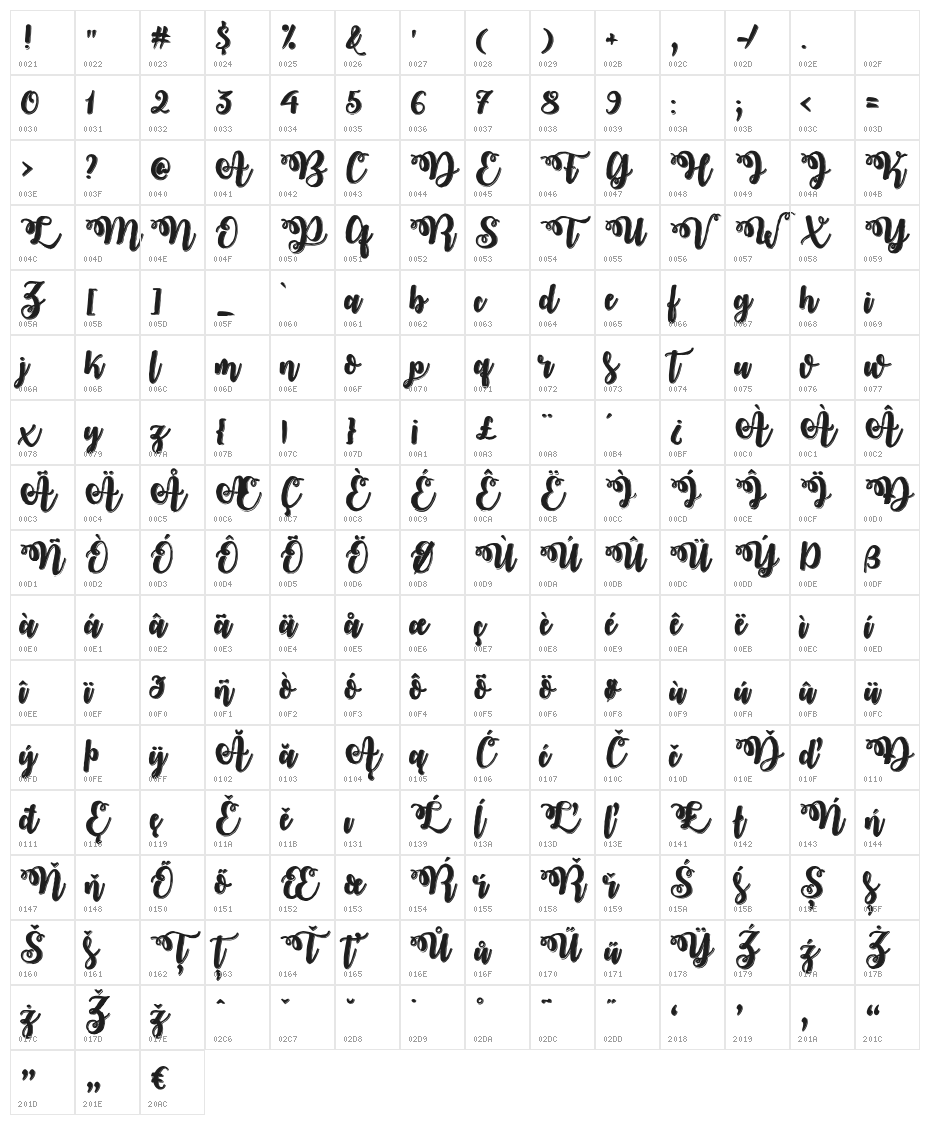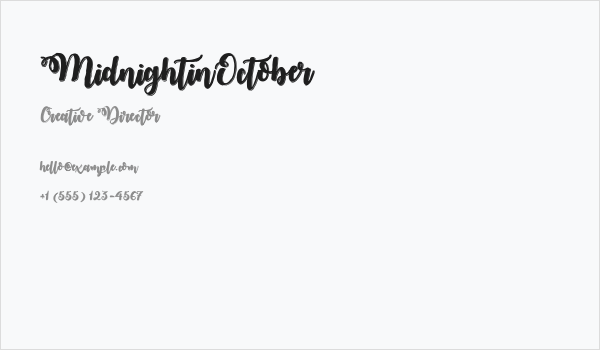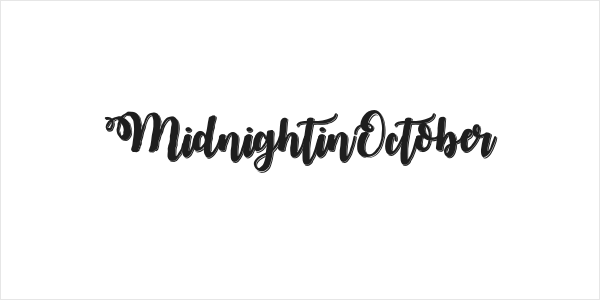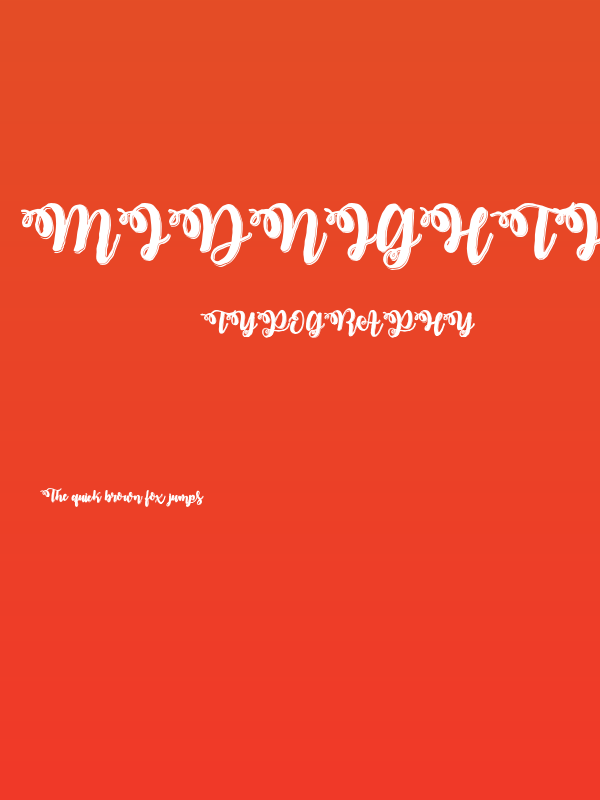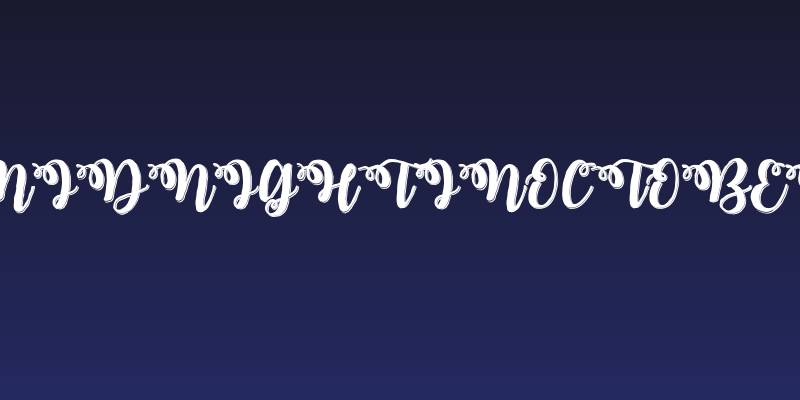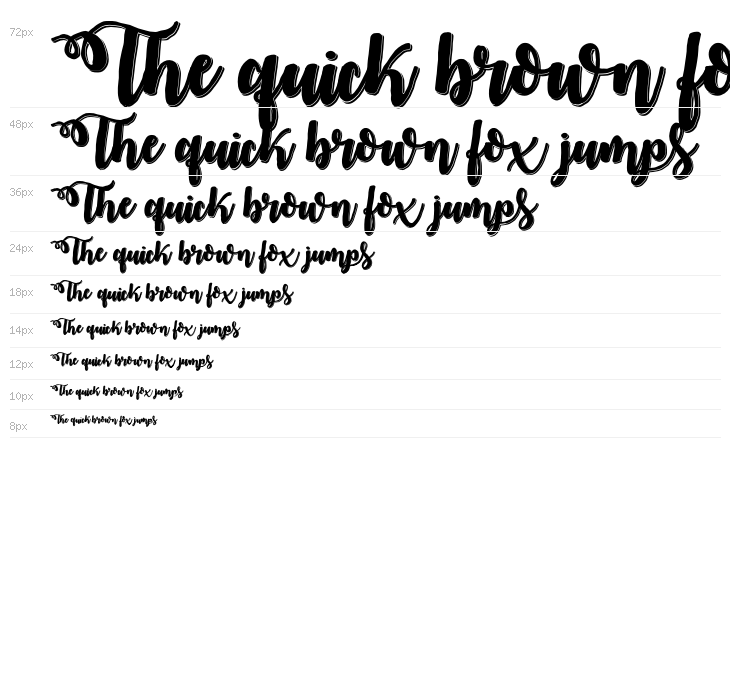
MidnightinOctober Font
MidnightinOctober Description
This font features a bold, flowing script style with a modern and decorative flair. The uppercase letters are adorned with elegant swashes and loops, giving them a whimsical and artistic appearance. The lowercase letters maintain a consistent flow, with smooth curves and a handwritten feel. Numbers and special characters are designed to match the overall aesthetic, with a playful yet sophisticated look. The font's thick strokes and high contrast make it stand out, ideal for creating eye-catching designs.